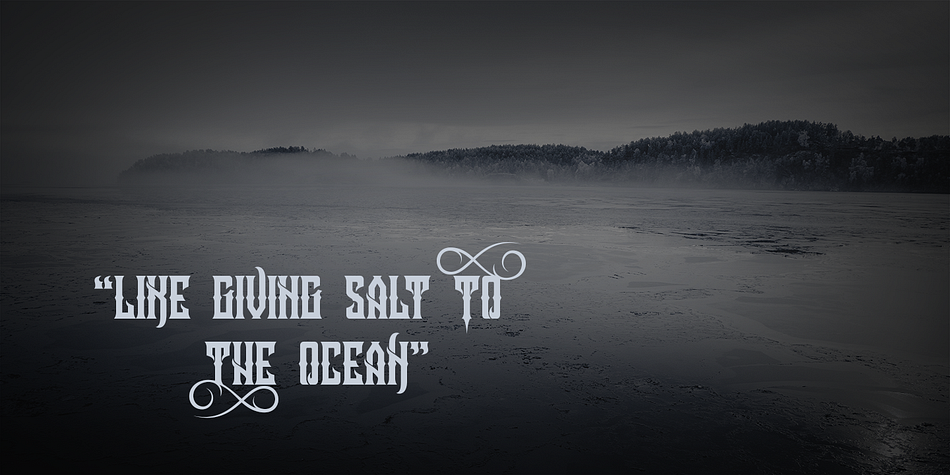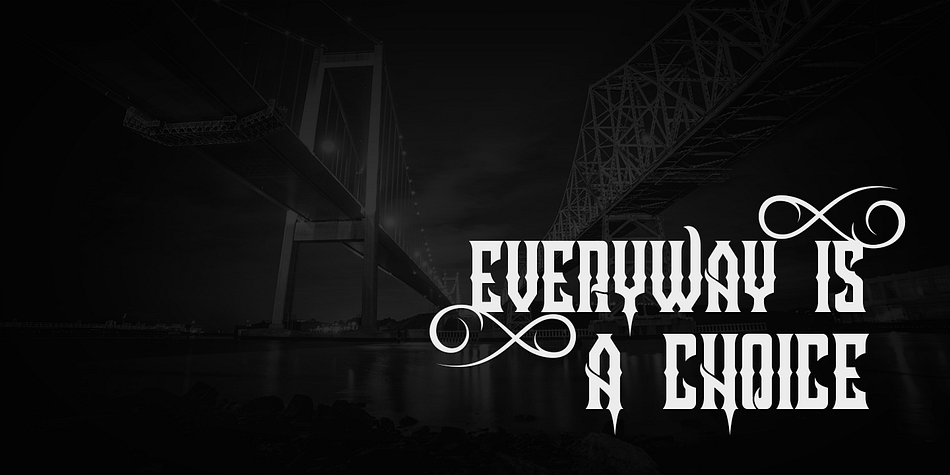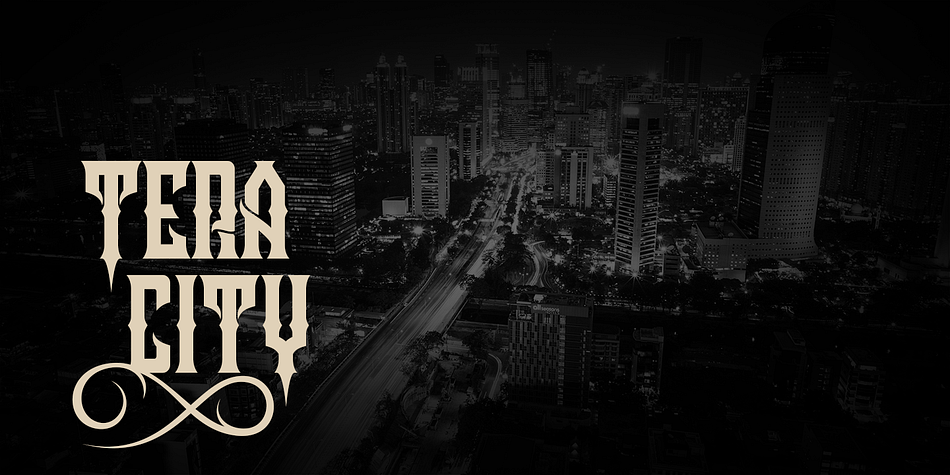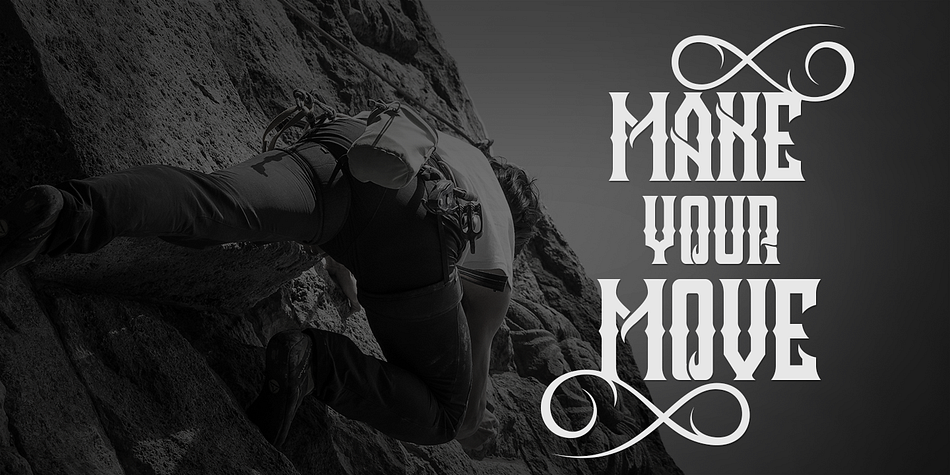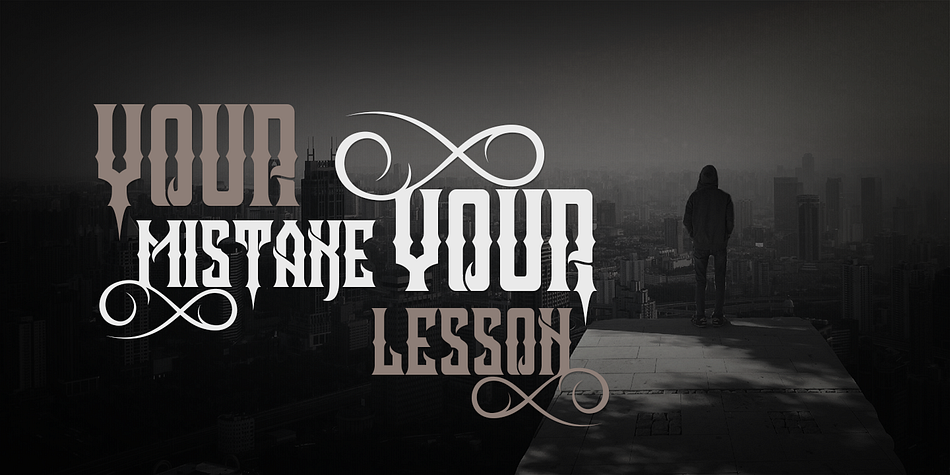
Crozzoe is a display, blackletter and display serif font published by Tamavocks.
Crozzoe is a decorative blackletter typeface inspired by victorian style.
The Crozzoe typeface includes a full set of uppercase and lowercase letters as well as multi-lingual and currency support, numerals, punctuations, alternates, ligatures and some extra glyphs.
- Character Set A-Z (Uppercase & Lowercase)
- Numerals & Punctuations
- Accents (Multilingual characters)
- Stylistic Alternates
- Titling
- ss01, ss02, ss03, ss04, ss05, ss06, ss07
- Discreationary Ligatures
Crozzoe typeface is suitable font for creating beautiful things and many creative work.
Styles | Blackletter, Display, Display Serif |